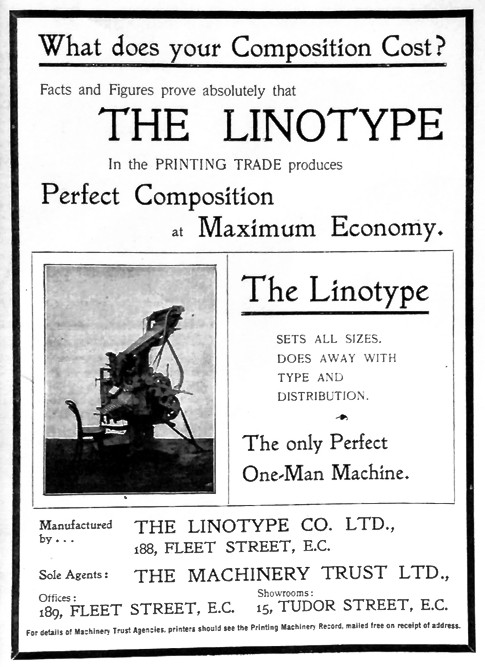
Old Linotype Advertisement.
I always thought that Linotypes manufactured in England, unless imported, were made by Linotype & Machinery. It would appear that was not the case, as can be seen in this ad.
Is it possible the L&ML had not yet been established?
That's a very old ad, probably circa 190x judging by the Golden Type (William Morris) typographic choice.
Linotype & Machinery Limited was established in 1903, and the Altrincham factory was originally established by The Machinery Trust.
Linotype Jubilee typeface, designed by Walter Tracy, was so named because it was released during the 50th anniversary year of L&M Ltd.